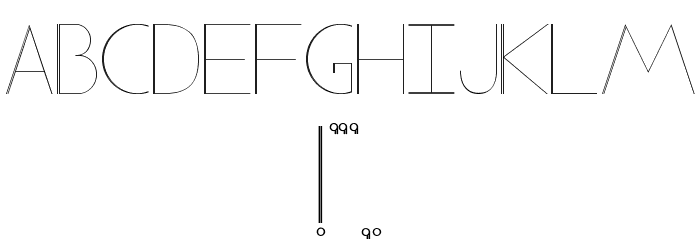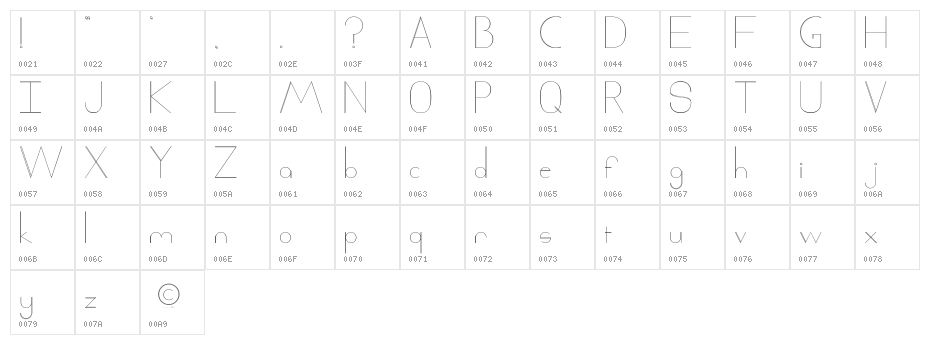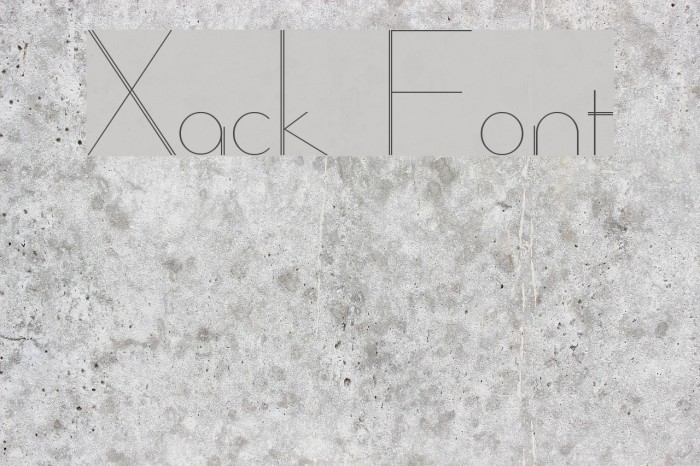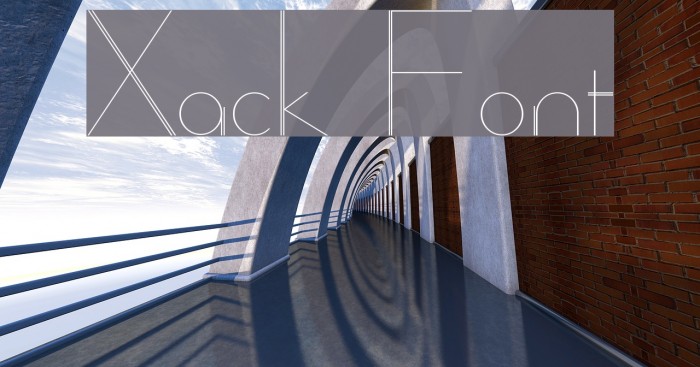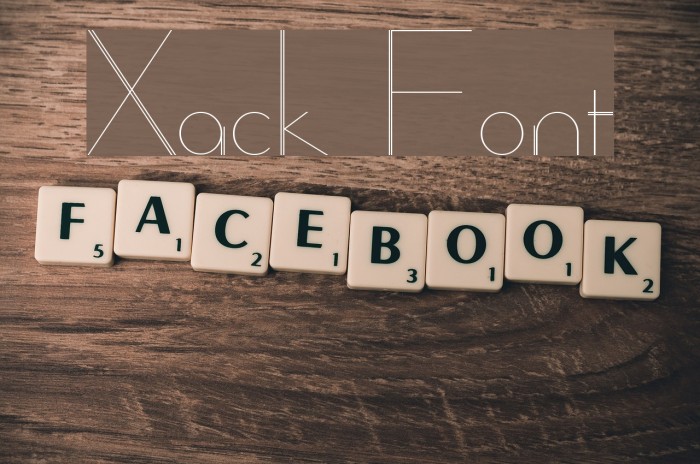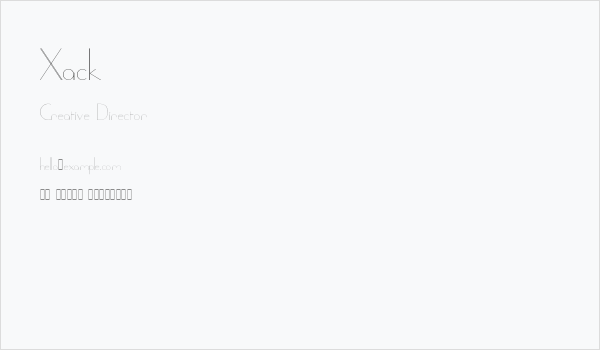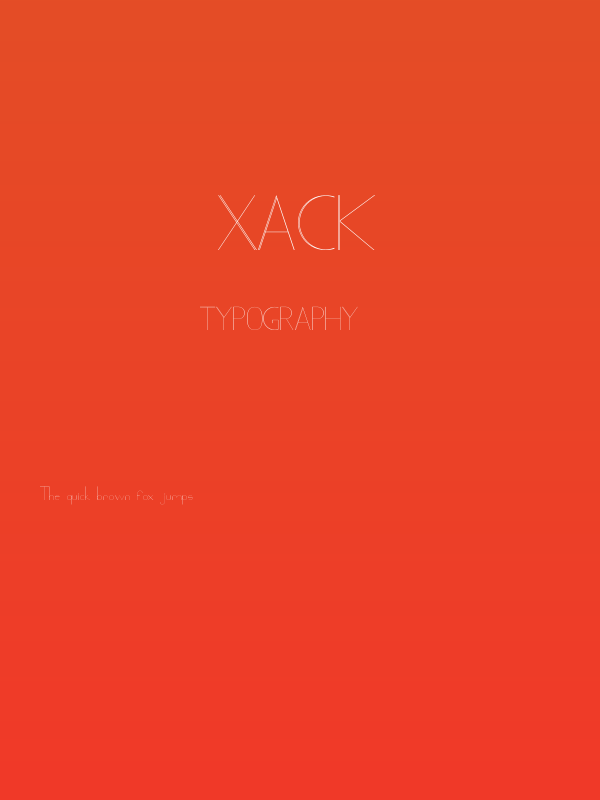
Xack Font
Xack Description
This font features a modern and minimalist design with thin, elongated strokes and a geometric structure. The uppercase letters are tall and narrow, with a consistent height across the set, while the lowercase letters maintain a similar style with a slightly more playful curvature. The numerals and special characters are designed to match the overall aesthetic, maintaining the thin and precise lines. The font's clean and airy appearance makes it suitable for contemporary design projects where clarity and elegance are desired.
| Proposed Projects | Ideal for modern branding, minimalist posters, and sleek web design. |